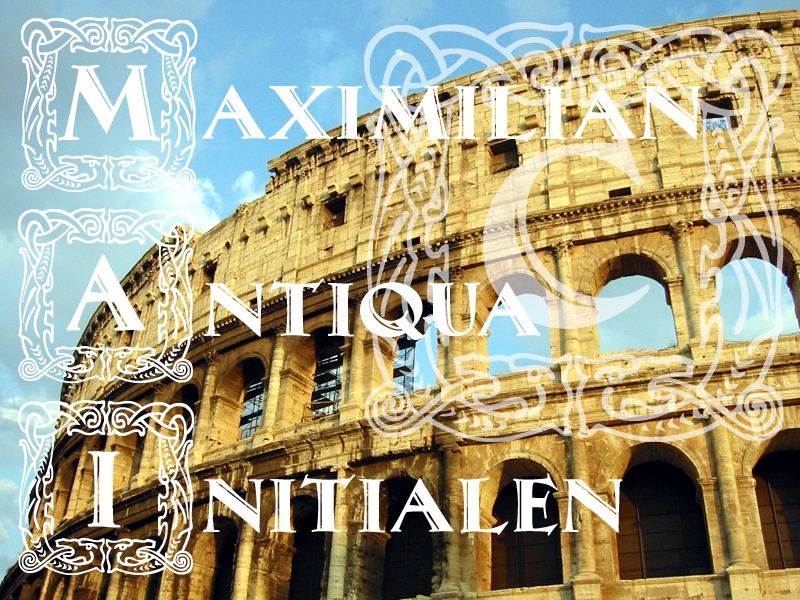
Rudolf Koch (1876-1934) was a master and genius in type design. Maybe there was no greater type cutter in Germany until today. One of his fonts is Maximilian Antiqua. A rather humble but elegant typeface. I combined it here with a decorative dragon themed frame and made Maximilian Antiqua into a pretty initials font. The font is public domain, free for all uses, commercial and private. |